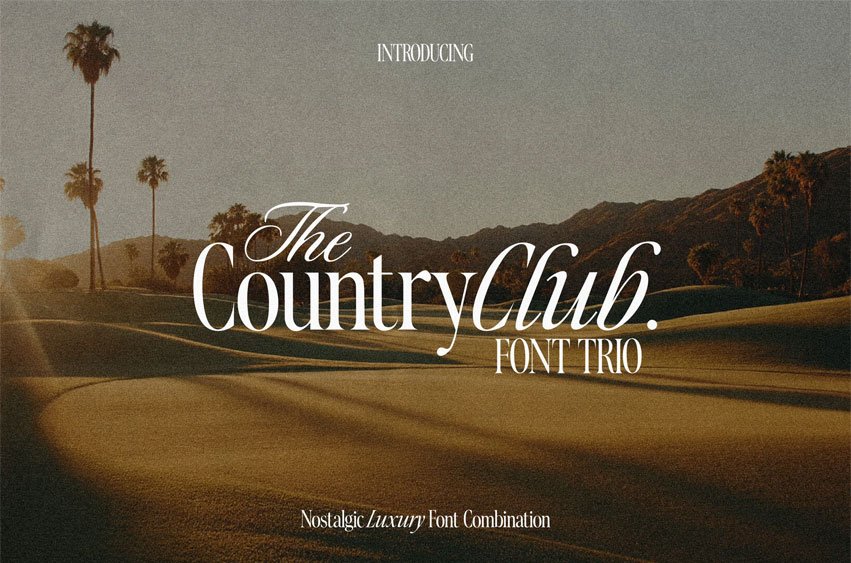
The Country Club Font Trio, a masterfully curated collection of three distinct, timeless fonts designed to work in perfect harmony.
Inspired by the golden era of vintage travel, high-end resorts, and classic sporting clubs, this trio brings a touch of “Old Money” sophistication to any project. Ideal for projects that demand a touch of classic refinement and effortless style.
Perfect For:
- Luxury branding for creatives (web designers, brand designers, interior designers, etc).
- Premium & high-end products (scents, cosmetics, beauty products, candles, etc).
- Classy resorts, spas, and hotels.
- Heritage brands & sophisticated personal branding.
- Exclusive membership logos.
- Timeless wedding stationery.
- Editorial magazines.